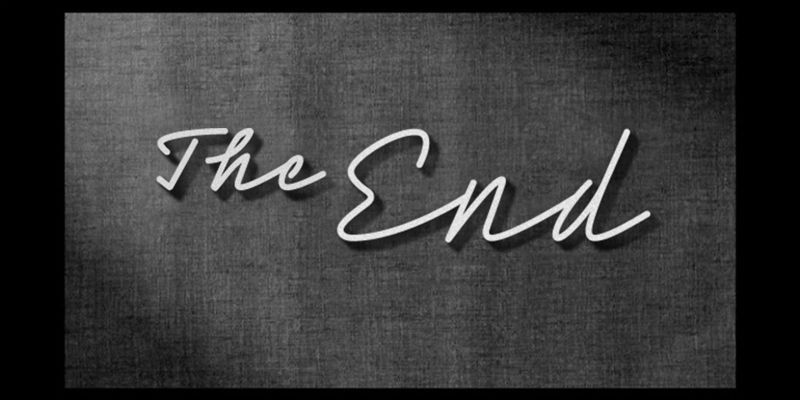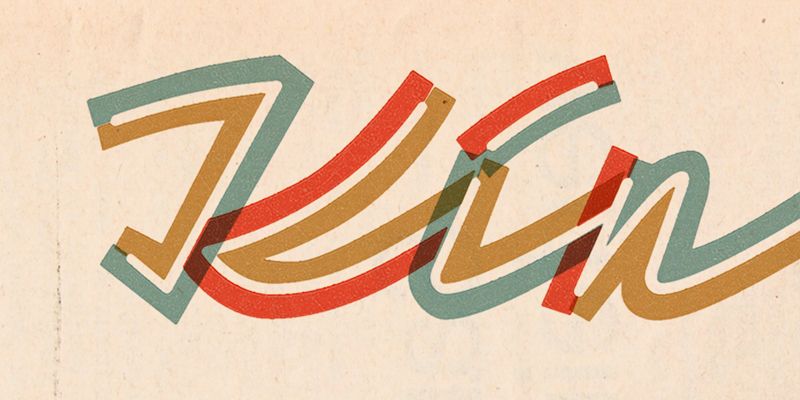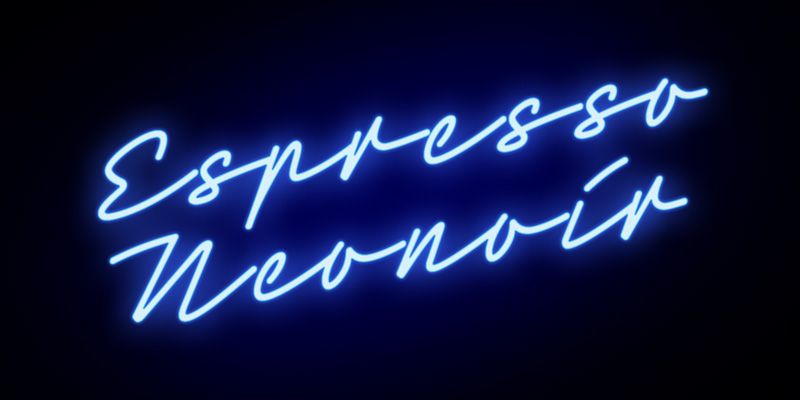
Neonoir is an homage to neon lettering craftsmanship of the mid 20th century. The beautiful futuristic grace of wall-sized bent-glass hand-writing, distilled into one connected script typeface.
Phospho
Located in a central district of Vienna, Austria, Roland Hörmann runs phospho – a graphic design studio that specializes in type design.
In the early Nineties, long before he had decided to study graphic design, Roland began to dabble in type design and created a handful of experimental pixel fonts on the Commodore 64. It wasn’t until 2007, though, that he made his first serious attempts at type design, and in the following year, he published his first typeface.
Besides phospho he runs his passion project Stadtschrift: an association for the collection, preservation and documentation of historic façade signs. “We save unique signs from being scrapped and put them on display in the public again. So there is a big love for ancient shop signage and their typefaces, and the inspiration I draw from the heritage of the city makes phospho a heartfelt Viennese foundry.”